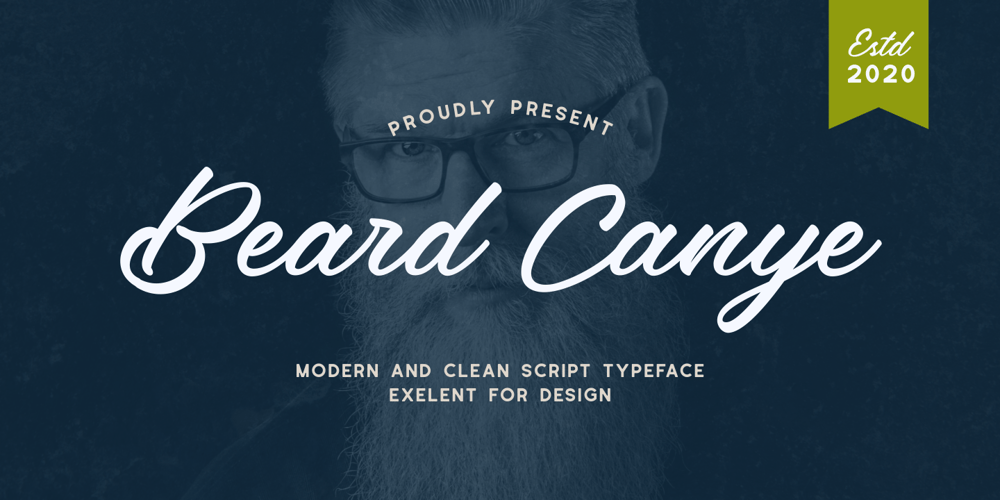
Beard Canye Font Family was designed by Fype and published by Fype Co. Beard Canye contains 1 styles and family package options. Beard Canye is perfect for delivering any message with confidence and style. This hand-lettered script is inspired by baseball. Beard Canye works well for logos, stationery, social media, branding, packaging, header, and so much more.